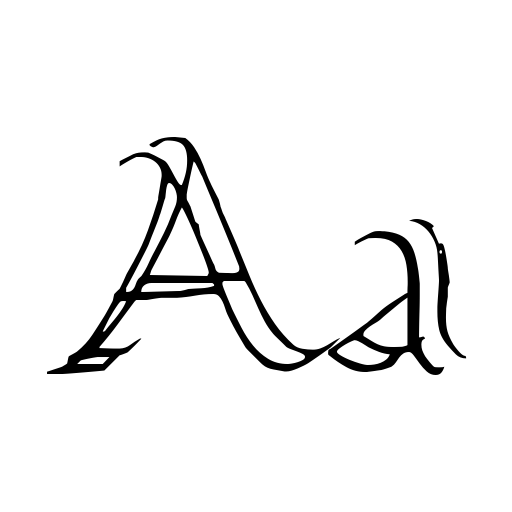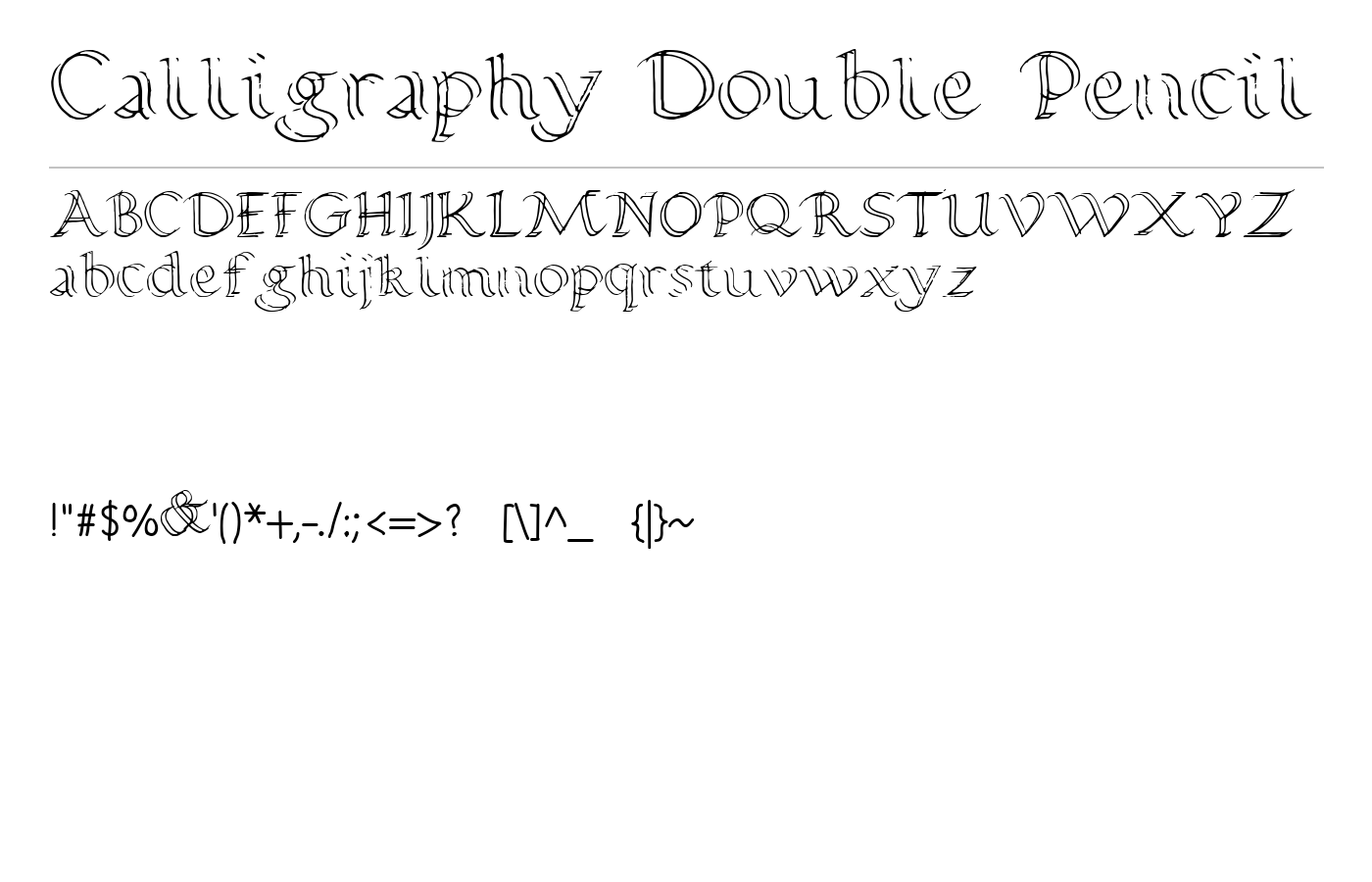
Calligraphy Double Pencil is a delicate serif font with a handcrafted, calligraphic feel that combines light strokes with a double-line pencil effect, giving it a unique textured appearance. Its elegant, slightly narrow letterforms and fine stroke contrast make it ideal for artistic, vintage-inspired designs or creative branding where a refined yet playful style is desired. This font works best in logos, invitations, and decorative headlines that seek a personal, elegant touch.
Calligraphy Double Pencil Font
About Calligraphy Double Pencil Font
| Font family | Calligraphy Double Pencil Font |